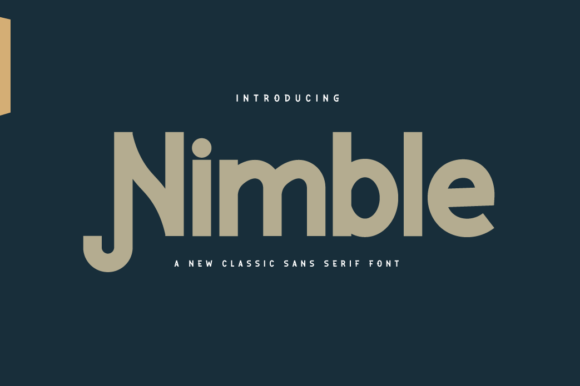
**Introducing Nimble: The Sans Serif Font That Will Captivate Your Audience**
Prepare to be awestruck by Nimble, the sans serif font that exudes confidence and simplicity. With its bold strokes and clean lines, Nimble has the power to transform your designs into captivating masterpieces.
**A Font for Every Occasion**
No matter the subject matter, Nimble seamlessly adapts to your every need. From elegant wedding invitations to captivating social media posts, this font possesses the versatility to elevate any creation.
**Steal the Spotlight on YouTube**
If you're looking to leave a lasting impression on your YouTube audience, Nimble is the perfect choice for your logo. Its striking presence will command attention, ensuring that your channel stands out from the crowd.
**Effortless Elegance**
Nimble's clean lines and minimalistic style embody elegance and sophistication. Whether you're crafting a corporate presentation or designing a personal website, this font will add a touch of class to your creations.
**The Perfect Addition to Your Font Library**
Nimble is not just another font; it's an essential asset that will empower you to create designs that resonate with your audience. Its versatility and timeless appeal make it a must-have for any designer seeking to make a statement.
Experience the transformative power of Nimble and witness how its bold simplicity elevates your designs. Whether you're a seasoned designer or just starting your creative journey, Nimble is the perfect companion to bring your vision to life.